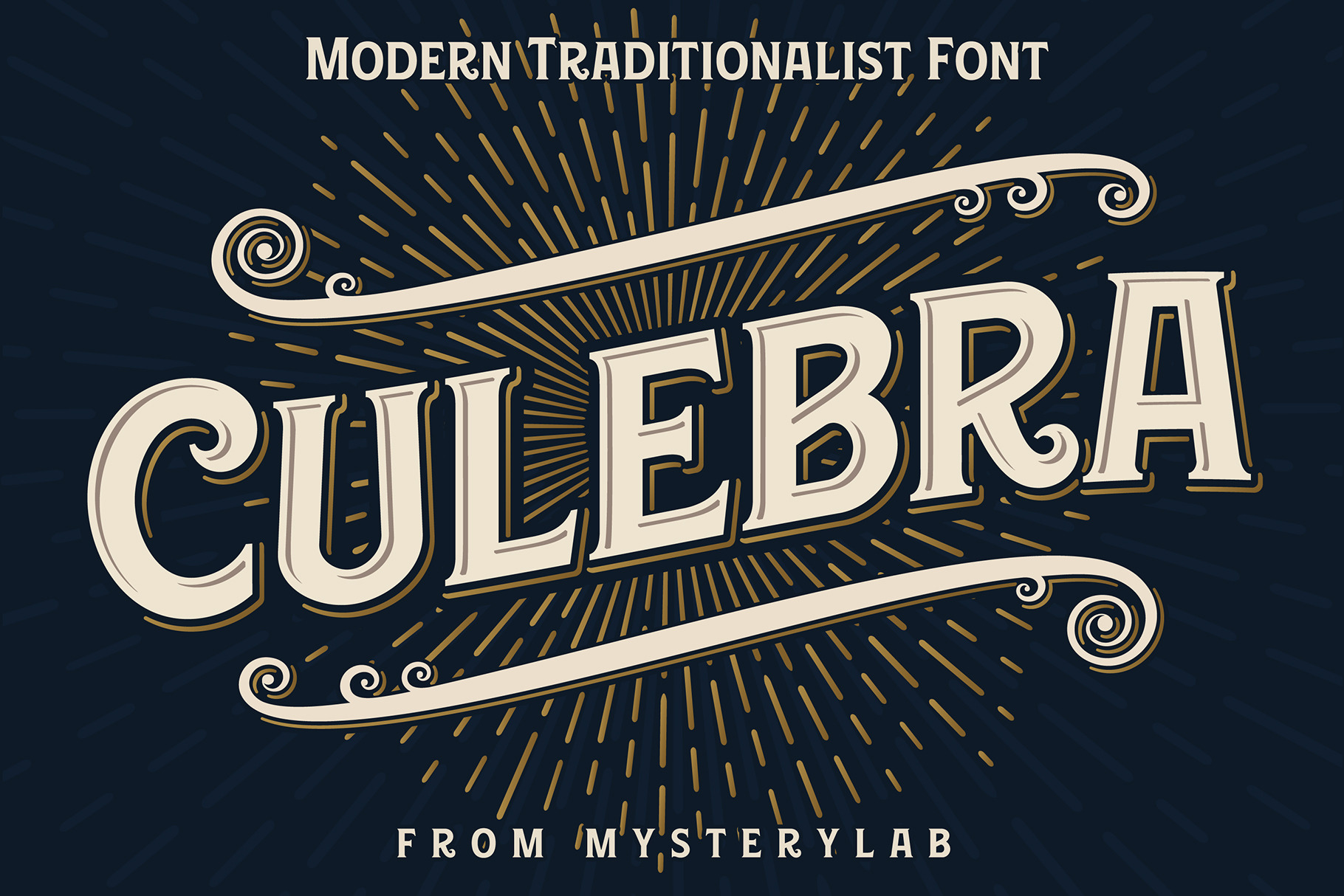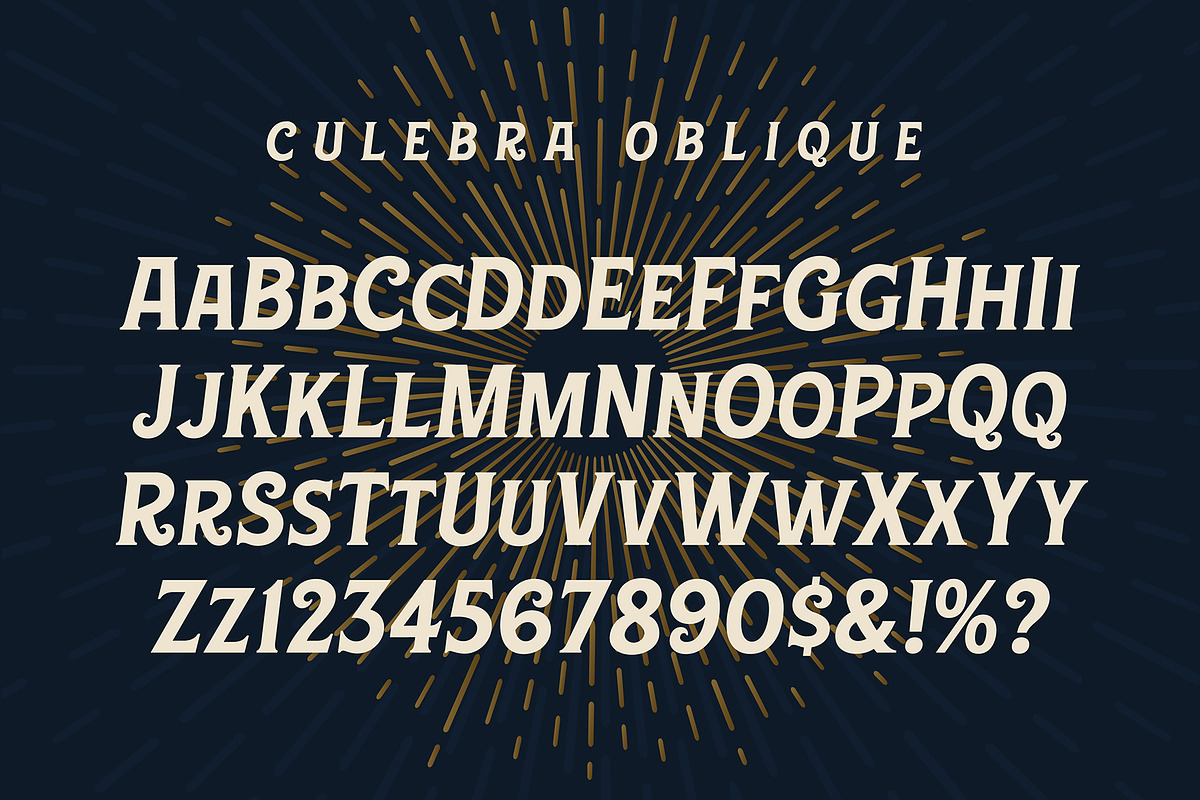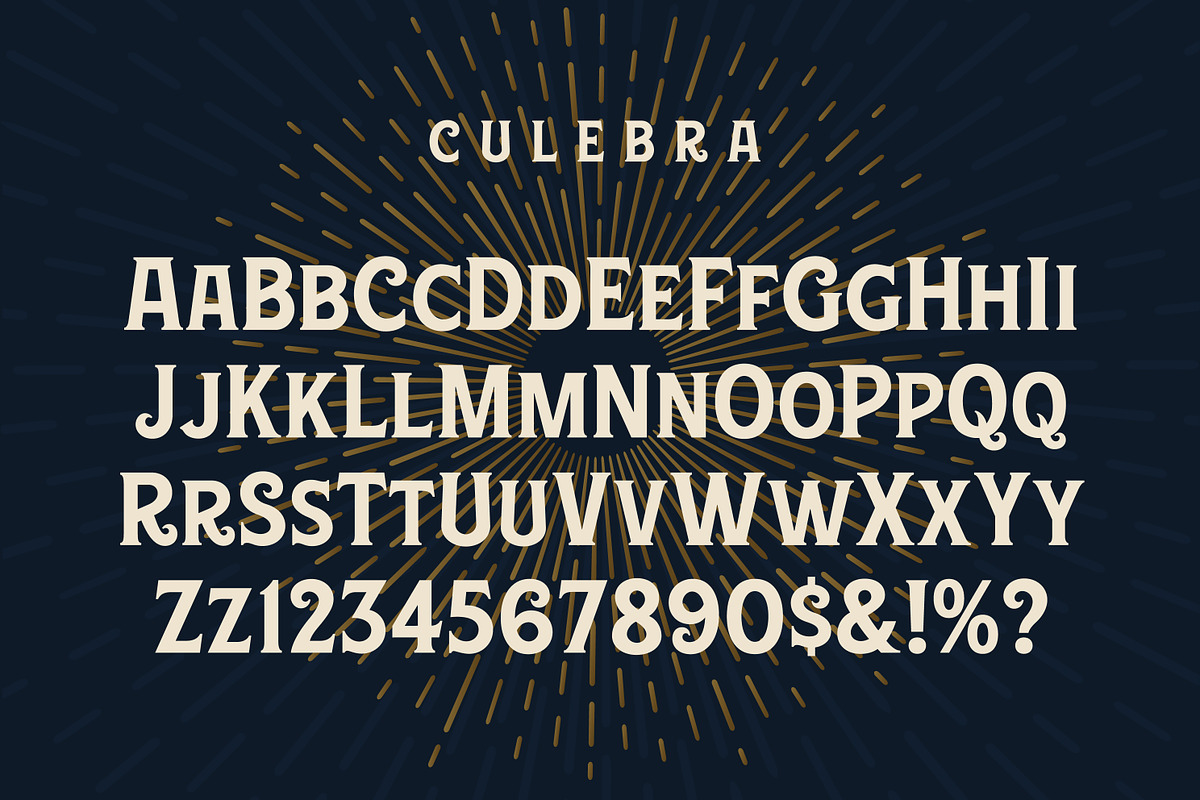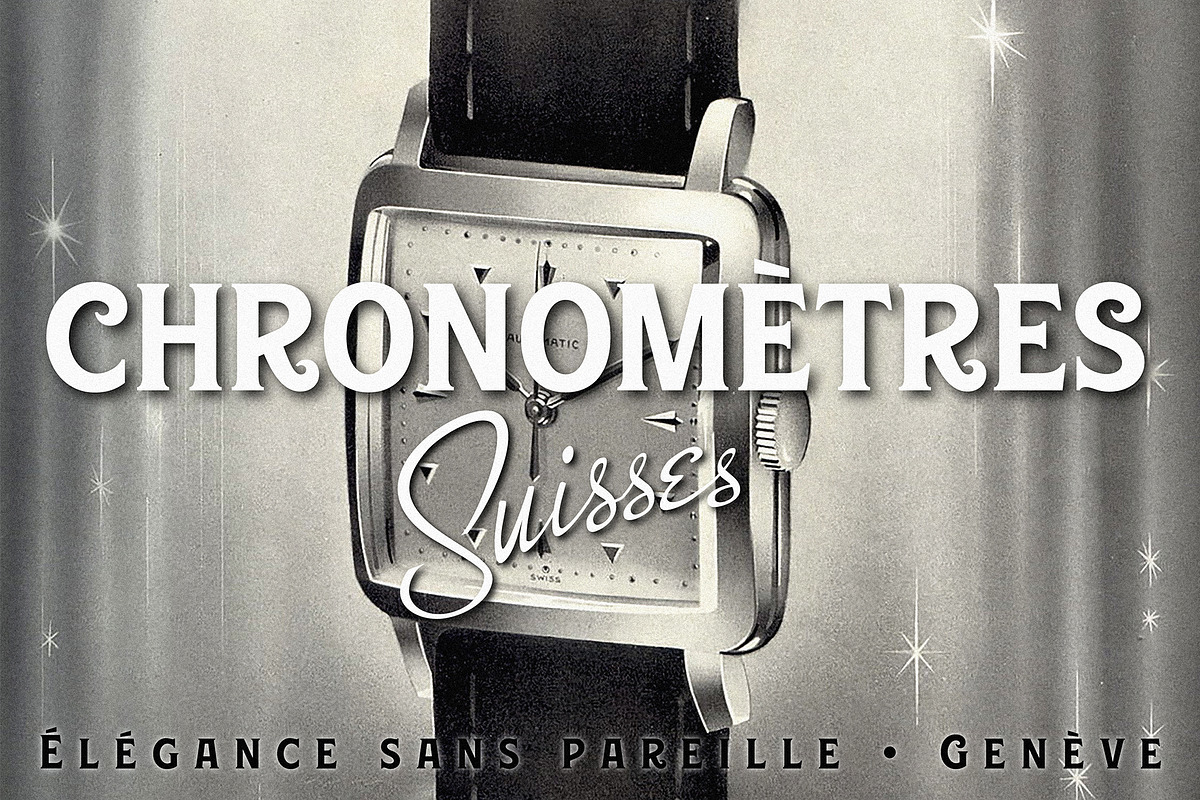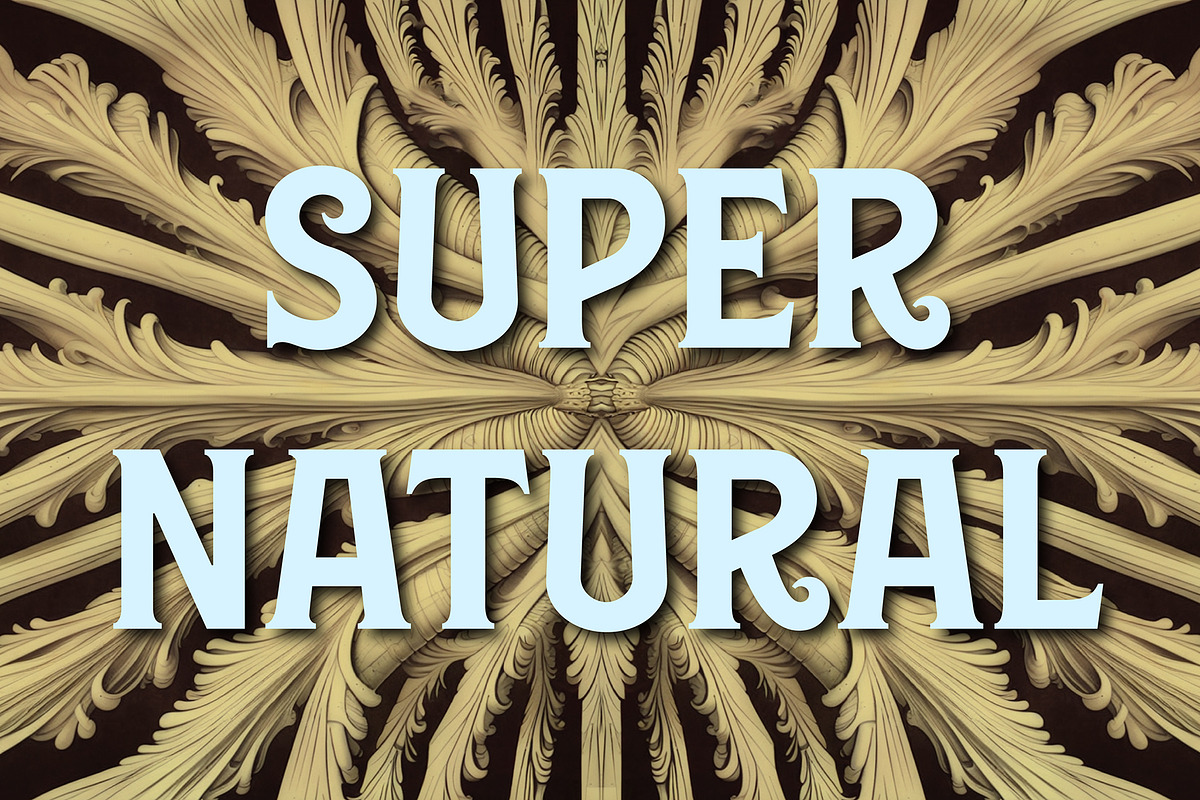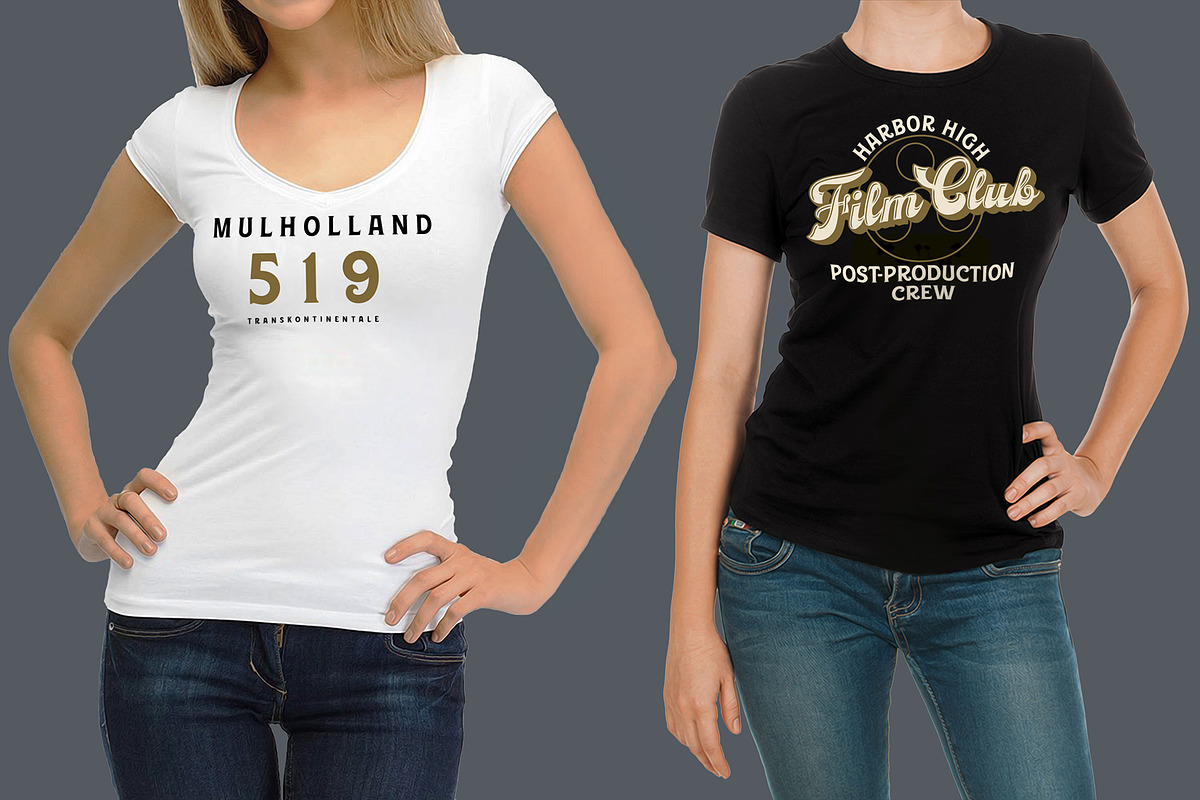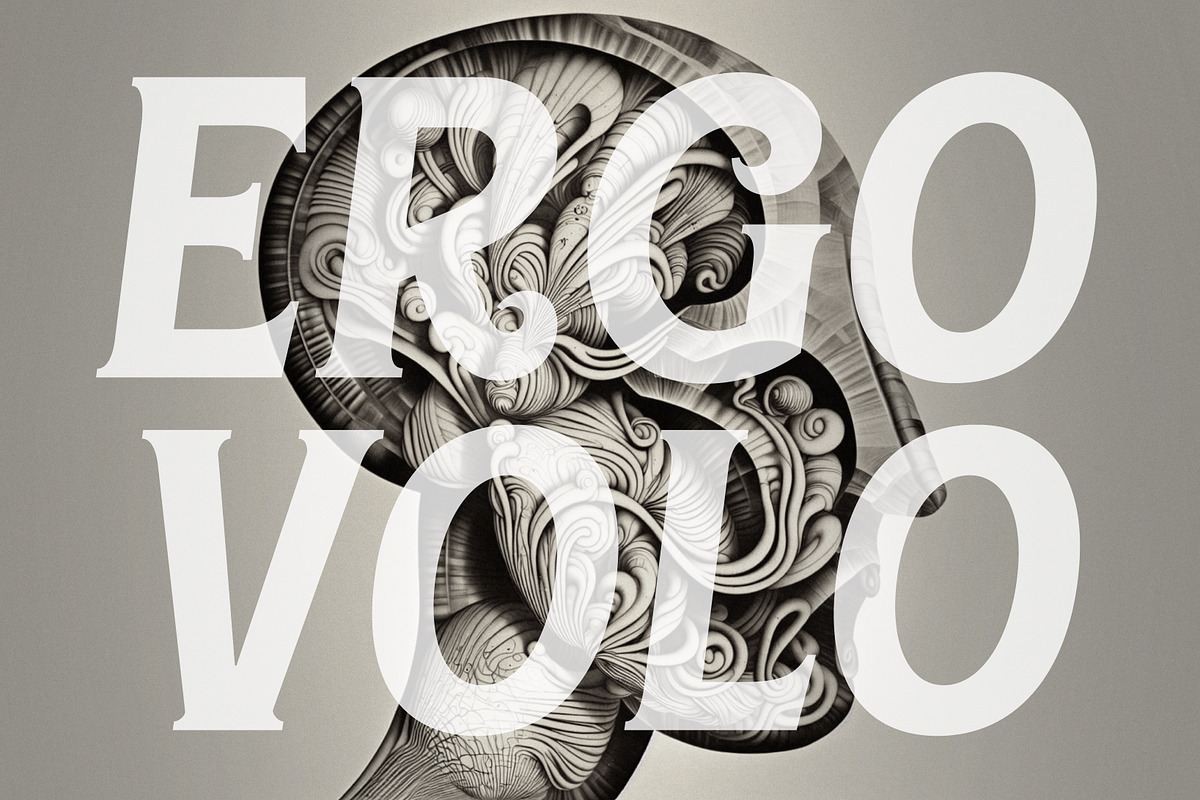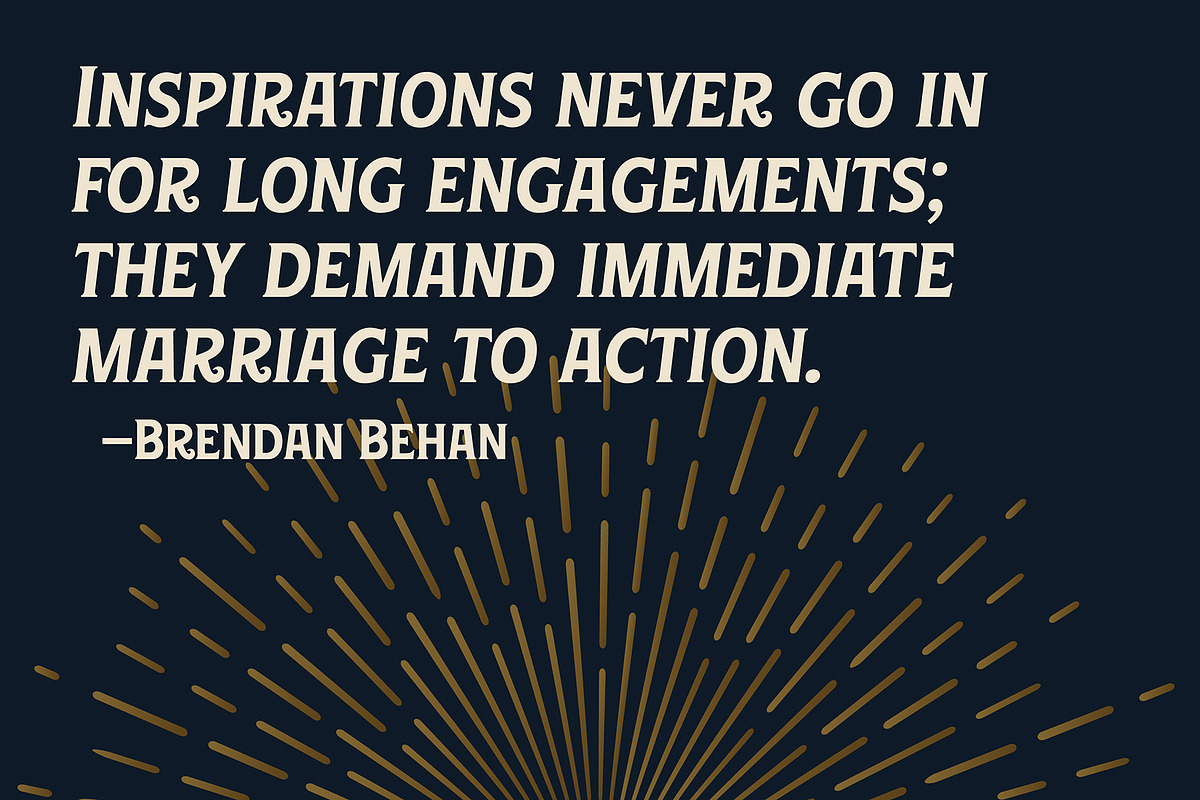
Culebra Font
Culebra is a neo-traditionalist small-caps font designed in the tradition of high-end metalwork craftspeople and Western & Victorian sign-painting styles. With a bit of a nod to the standard of perennial favorites like Copperplate Gothic font, Culebra brings some eye-catching design touches and a more condensed structure for more economical use of horizontal space. It's a font that is as readable as they come, and would hardly be out of place in any design context, as it truly takes on a complementary vibe to almost any font style you want to pair it with.